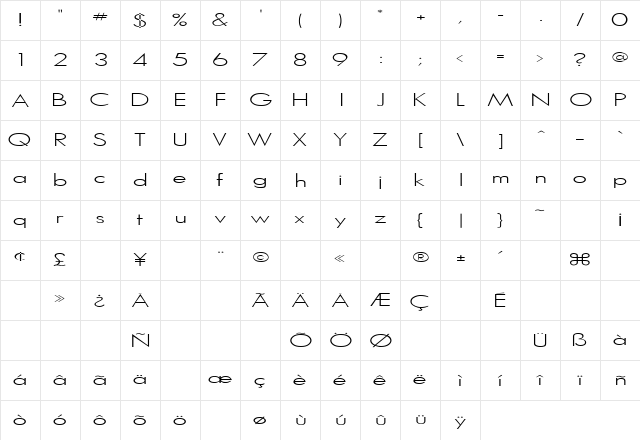
Sanlite Regular
Design Context for Sanlite Typeface
Sanlite is a composed and adaptable typeface that performs quietly and consistently across a wide range of design contexts.